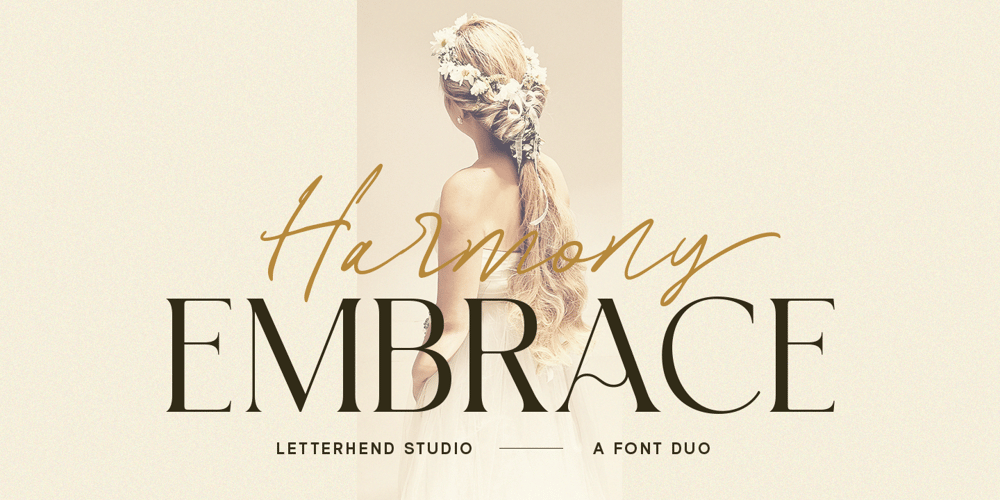
Harmony Embrace Font Family was designed by Hendry Juanda and published by Letterhend. Harmony Embrace contains 2 styles and family package options. Harmony Embrace is a font duo that seamlessly blends a signature script and chic serif font to create a modern and elegant look.The script font is perfect for creating a personal touch and adding a bit of flair to your designs, while the serif font adds a sense of professionalism and sophistication.Features : Uppercase & lowercase Numbers and punctuation Alternates & Ligatures Multilingual PUA encoded We highly recommend using a program that supports OpenType features and Glyphs panels like many of Adobe apps and Corel Draw, so you can see and access all Glyph variations.